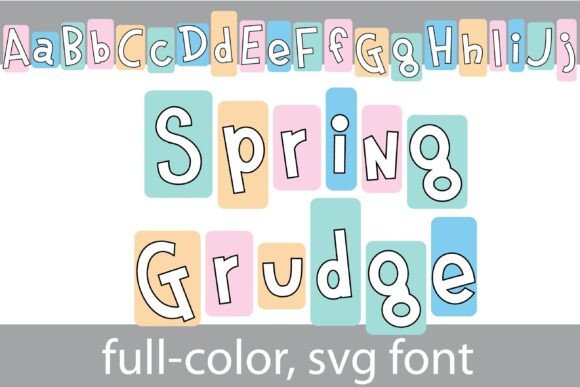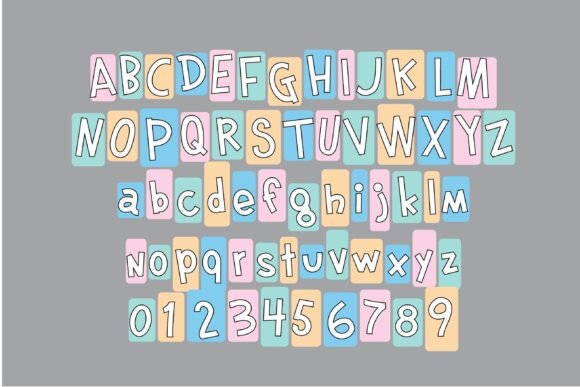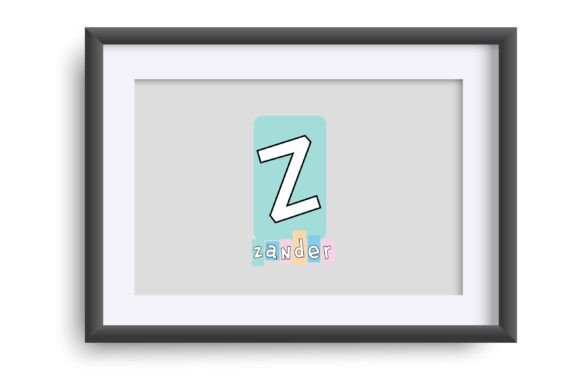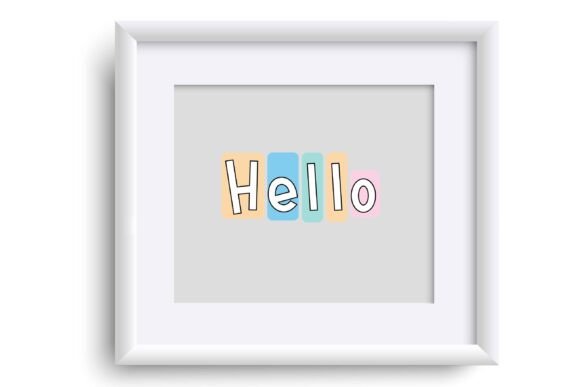
Spring Grudge Font
About the Spring Grudge Font
Crafted with precision, the Spring Grudge Font is ready to bring your ideas to life. This full-color font features a very youthful and fun font placed on colorful, pastel blocks. There is an alt case of additional colors of each letter that you can access through your system or Silhouette’s glyph map. Access a bunny and chick by typing the greater than and less than glyphs.